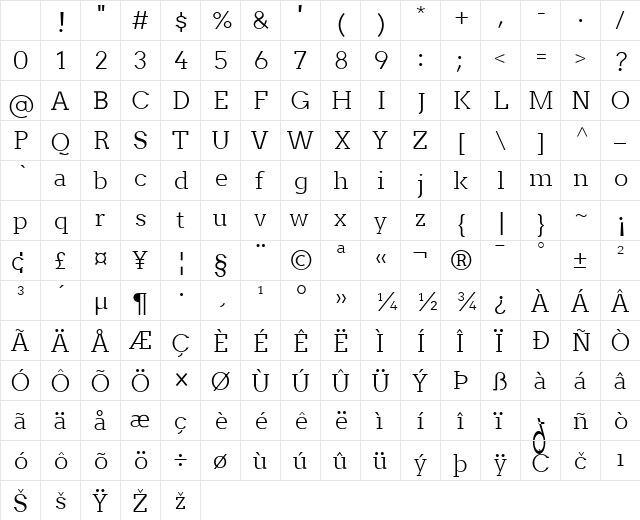
Complete Twentytwelve Slab Light TwentytwelveSlab glyph index. Displaying only characters natively supported by Twentytwelve Slab Light TwentytwelveSlab font.
Twentytwelve Slab Light features prominent, blocky serifs that give it a confident, grounded presence - equally at home in editorial settings and bold branding work. Its slender proportions lend an understated elegance to any composition.